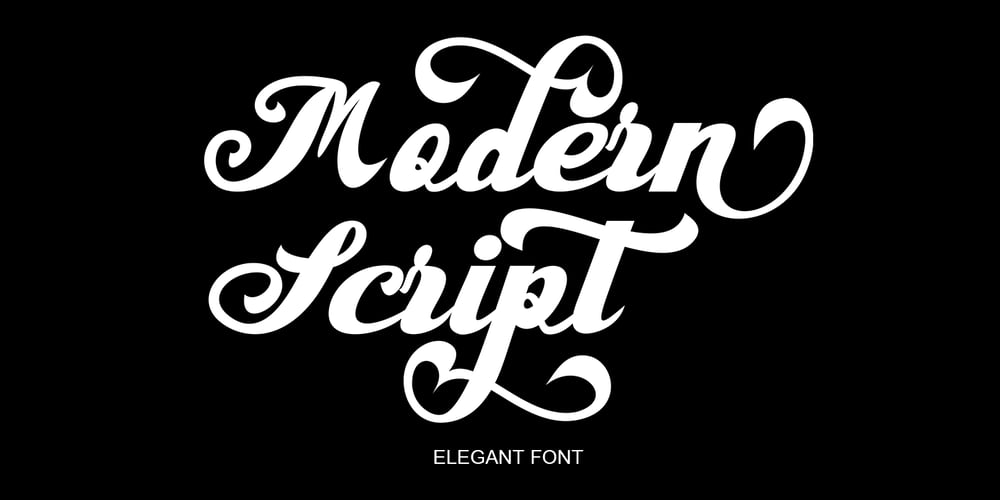
Modern Script
Modern Script font
Modern Script Font Family was designed by Teuku Saifullah and published by Shape Studio. Modern Script contains 1 styles and family package options. Modern Script is a new modern script font with an irregular baseline. Trendy and feminine style. Modern Script looks lovely on wedding invitations, thank you cards, quotes, greeting cards, logos, business cards and more. Perfect for using in ink or watercolour. Including initial and terminal letters, alternates and multiple language support.